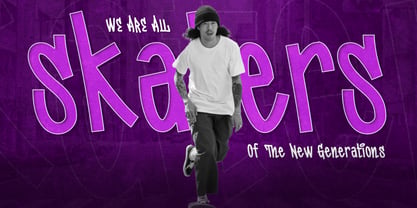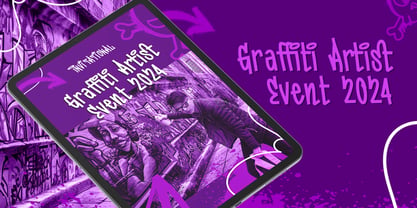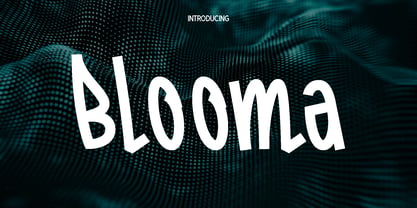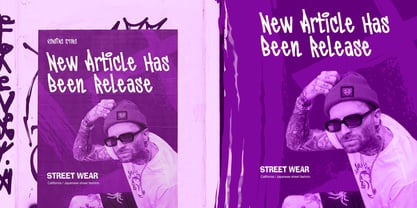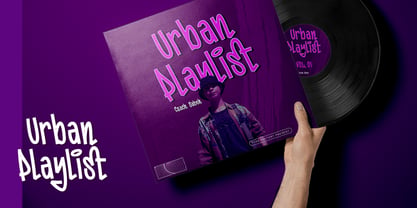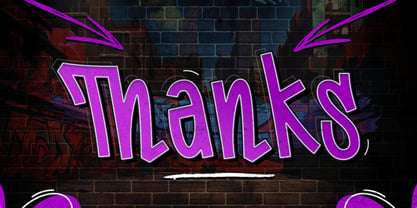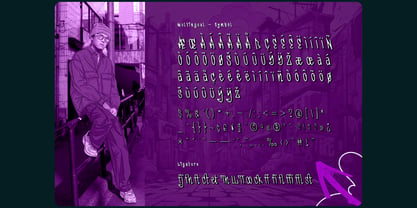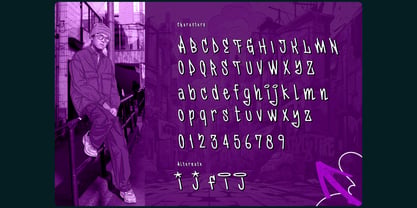
Blooma
by Only Fonts
The Blooma Font Family was designed by Olivia Love and published by Only Fonts. Blooma contains 1 styles. More about this family
Blooma is a high-voltage display typeface born from the energy of the streets—sharp, angular strokes collide with a gritty spray-paint patina to capture the rush of tags, throw-ups, and late-night murals in motion. It’s crafted to feel fast, rebellious, and unapologetically loud, bringing raw urban personality to any layout while staying readable enough to land your message with punch. Story and style Built from graffiti DNA, Blooma channels bold letter skeletons, tight rhythm, and restless diagonals into a cohesive system that feels hand-sprayed yet designed for control. The textured finish and fractured contours echo wall paint, drips, and overspray, delivering tactility that pops on print and screens. Uppercase and lowercase interplay unlocks attitude shifts—from blocky menace to agile movement—so headlines can snarl or sprint as needed. Where it shines Posters and flyers that must cut through visual noise for music festivals, club nights, street sport, or underground art shows. Album covers, merch drops, and streetwear graphics needing an authentic, urban edge that reads in a glance. Event branding, skate and BMX culture assets, sneaker promos, and fashion lookbooks aiming for gritty credibility. Social promos, thumbnails, and motion graphics that demand instant impact in tight viewports. Use cases Hero headlines, wordmarks, and bold lockups on editorial spreads or campaign key visuals. Sticker sheets, patches, and garment prints (front chest hits, back graphics, sleeve type). Wayfinding and stage signage at pop-ups and warehouse events. Collage typography layered with halftone textures, paint streaks, and photo grain. Standout features Dynamic spray-paint texture: a built-in, high-contrast surface that brings depth without extra effects. Bold, angular letterforms: compact shapes with tight spacing optimized for big-type drama. Ligatures: custom connections that mimic hand flow and add momentum to all-caps or mixed-case settings. Multilingual support: broaden your voice across markets and subcultures. Full toolkit: uppercase, lowercase, numerals, symbols, and punctuation for complete headline systems. Design tips Pair Blooma with a clean grotesque or geometric sans for body copy to balance texture with clarity. Push scale—Blooma thrives oversized, from poster edges to full-bleed typographic covers. Embrace contrast: set it over flat color, grainy photos, or high-ISO night shots to amplify the street feel. Tight tracking and strong line breaks enhance the cadence of stacked titles and chant-like slogans. Voice and vibe Raw, kinetic, streetwise, and intensely graphic. For brands and creators who prefer bold stances over safe choices, and real texture over sterile polish. Blooma is for designers who want their type to feel like fresh paint—loud, immediate, and impossible to ignore.
Designers: Olivia Love
Current Foundry: Only Fonts